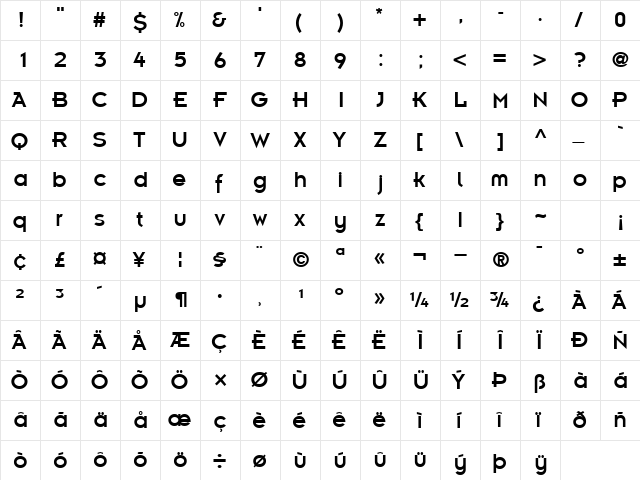
KernelSSK Regular
Design Context for KernelSSK Typeface
KernelSSK offers clean, dependable letterforms without strong stylistic allegiance, making it a practical choice for designers who need flexibility.